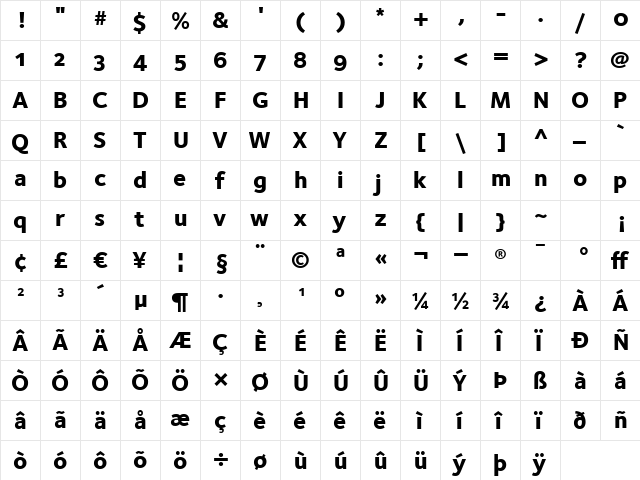
FoundrySterling-ExtraBoldOSF Regular Font Preview
FoundrySterling-ExtraBoldOSF Regular
FoundrySterling-ExtraBoldOSF Regular Font Details
| Designer | The Foundry |
Design Context for FoundrySterling-ExtraBoldOSF Typeface
FoundrySterling-ExtraBoldOSF takes a measured approach to typography — its balanced proportions and neutral character make it a reliable workhorse for both digital and print work. The heavy weight commands attention and anchors typographic hierarchies.